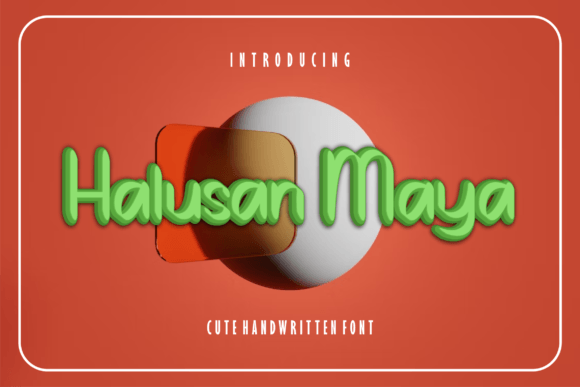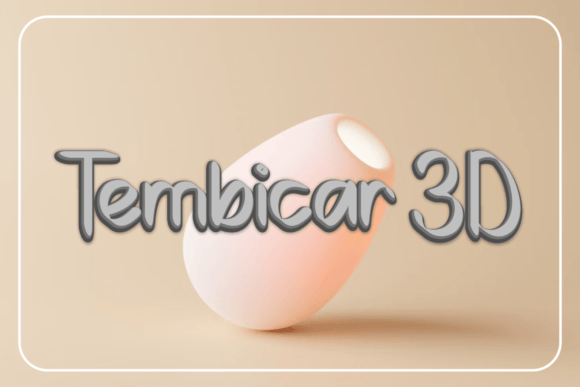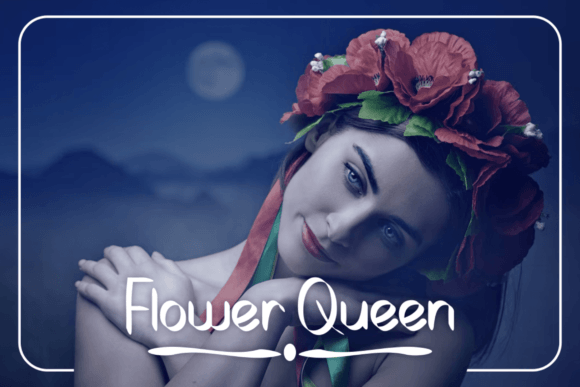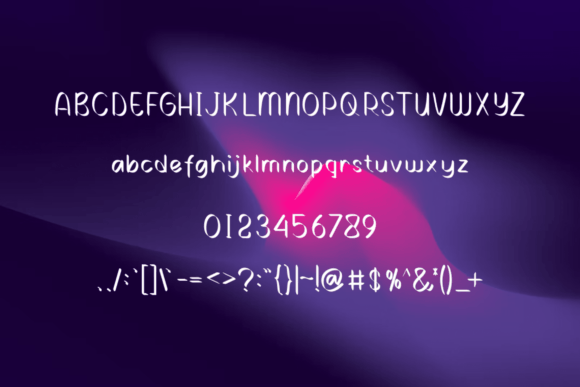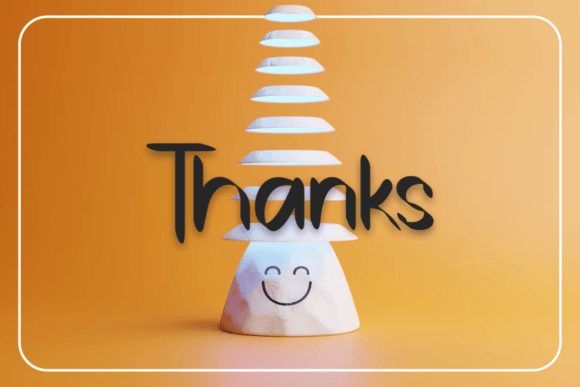
About Halusanmaya Font
**HalusanMaya** is a bold and authentic handwritten font that commands attention and makes a powerful statement. This font is suitable for a variety of branding projects, including logo design, t-shirt printing, e-sport branding, and more. It possesses the ability to stand out and make a lasting impression in a wide range of contexts.
One of the standout features of HalusanMaya is its bold and authentic design, characterized by strong and impactful letterforms. Each letter exudes confidence and uniqueness, making this font an excellent choice for projects where you want to create a bold and distinctive visual identity.
HalusanMaya’s versatility allows it to shine in various design contexts. It can be applied to logo design, t-shirt printing, e-sport branding, posters, social media graphics, and any project that calls for a bold and authentic font. Its powerful and impactful appearance ensures that your work leaves a strong impression.
For logo design and branding, HalusanMaya adds a sense of strength and uniqueness to your brand identity, making it memorable and captivating.
In t-shirt printing and e-sport branding, this font creates a bold and distinctive look that resonates with your target audience, enhancing the appeal of your merchandise and branding materials.
For posters and social media graphics, HalusanMaya makes your messages and visuals stand out and grab attention.
HalusanMaya is a font that exudes boldness and authenticity, making it a valuable asset for projects that require a strong and impactful visual presence. Whether you’re designing logos, creating branding materials, or producing merchandise, HalusanMaya can be your go-to font for adding a bold and distinctive touch that leaves a lasting impact.